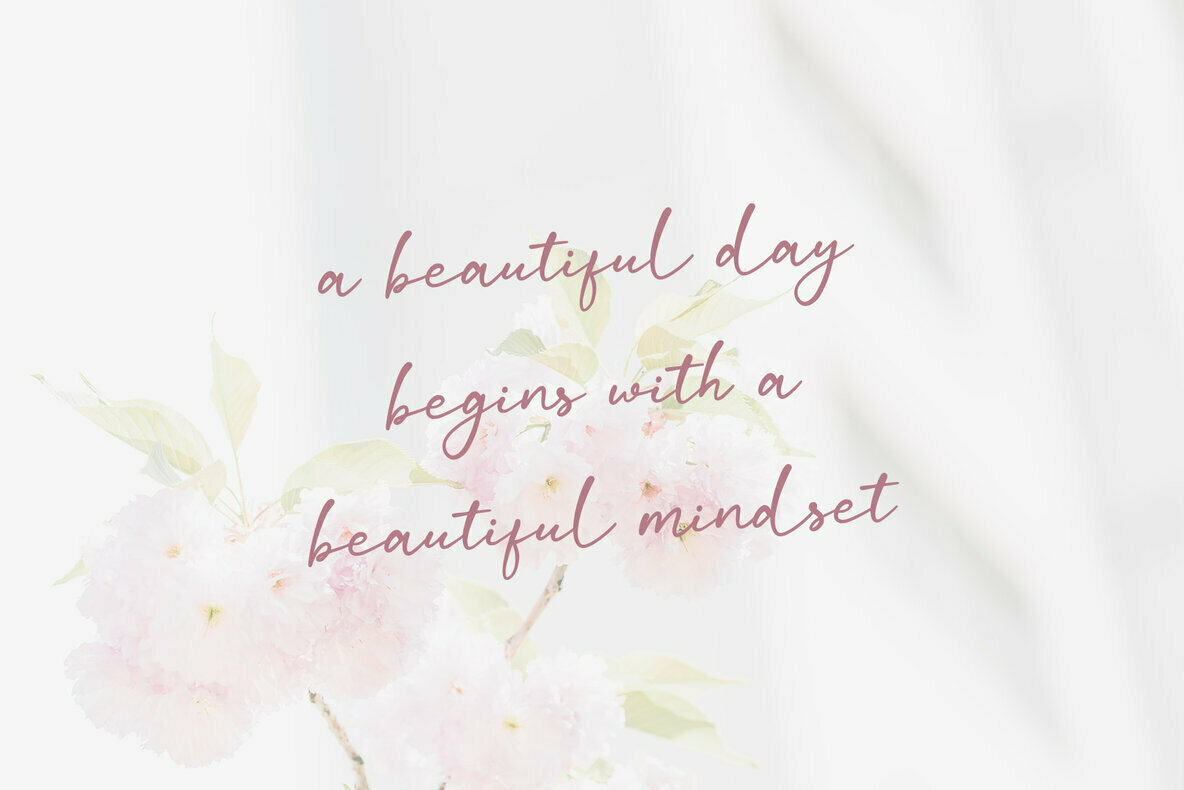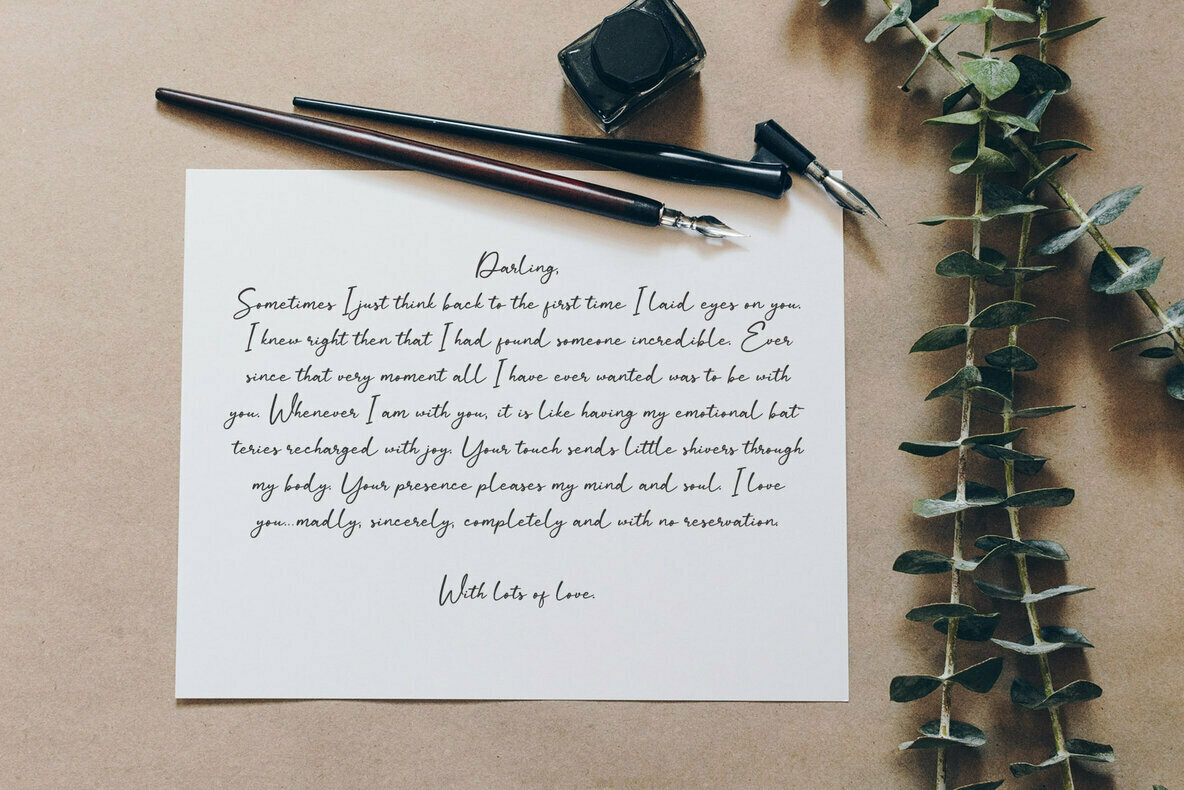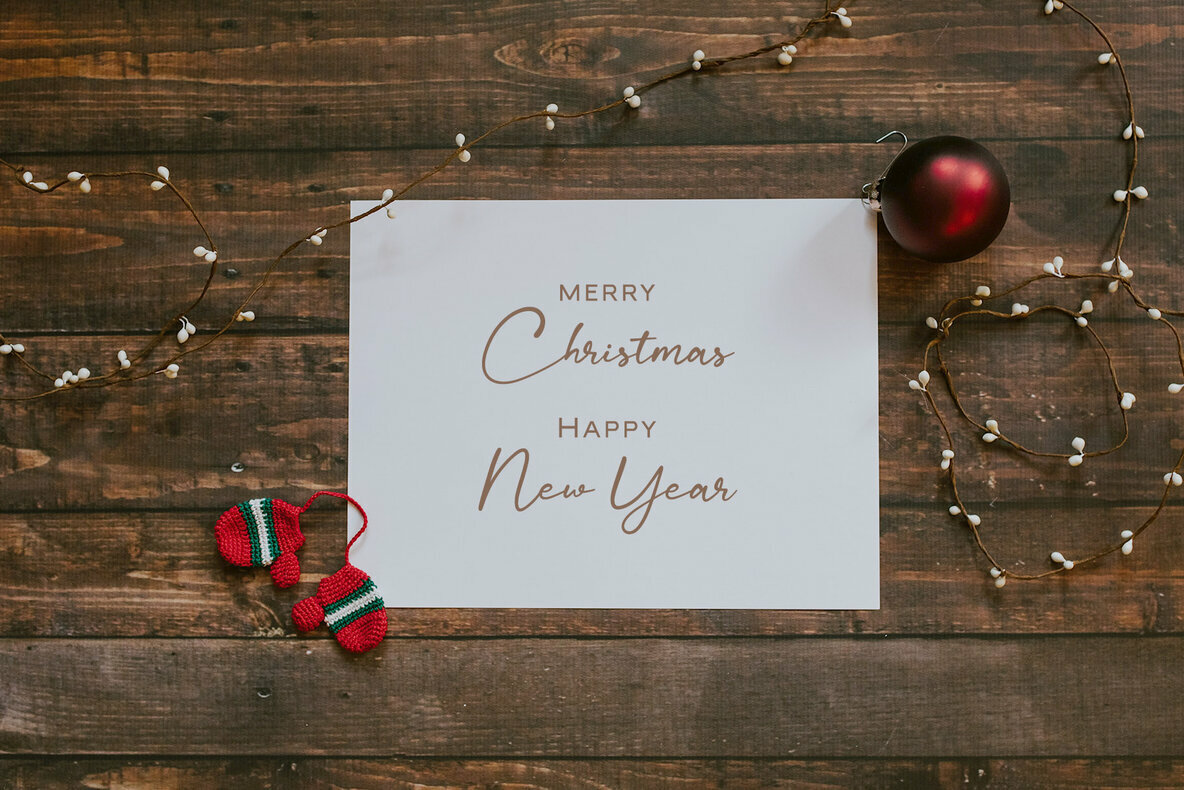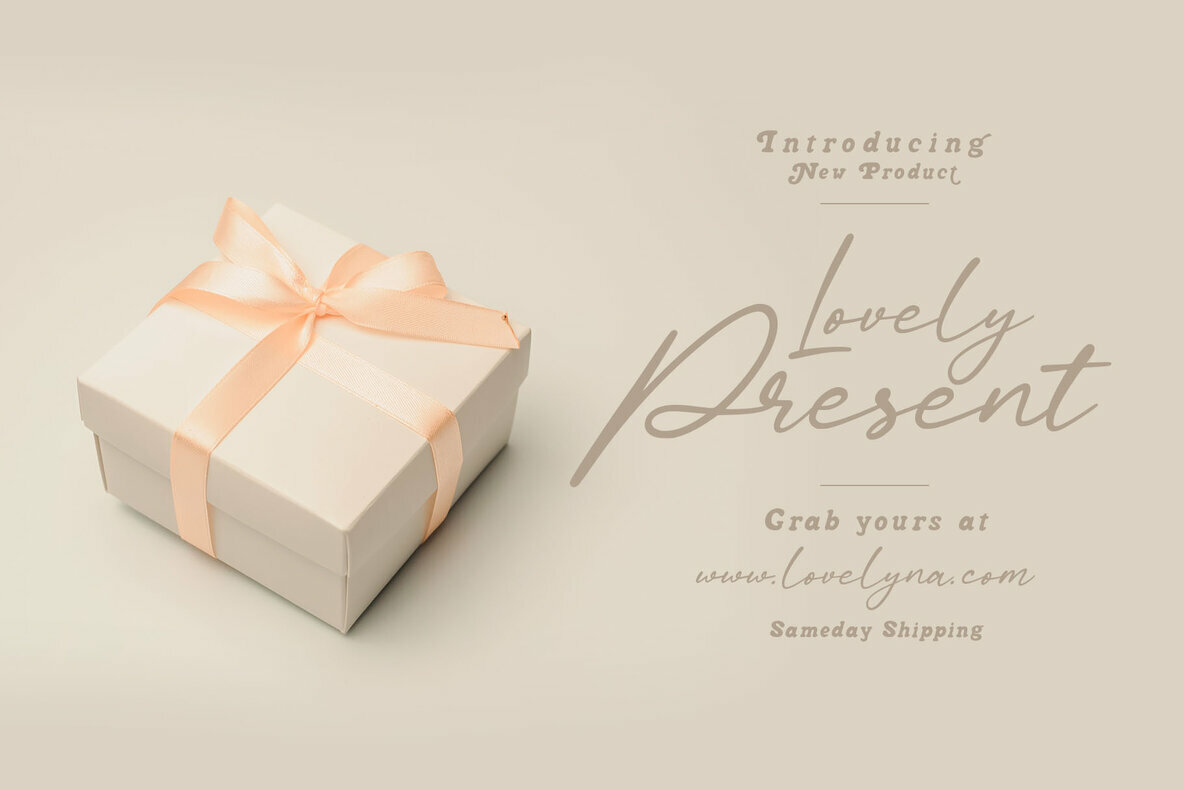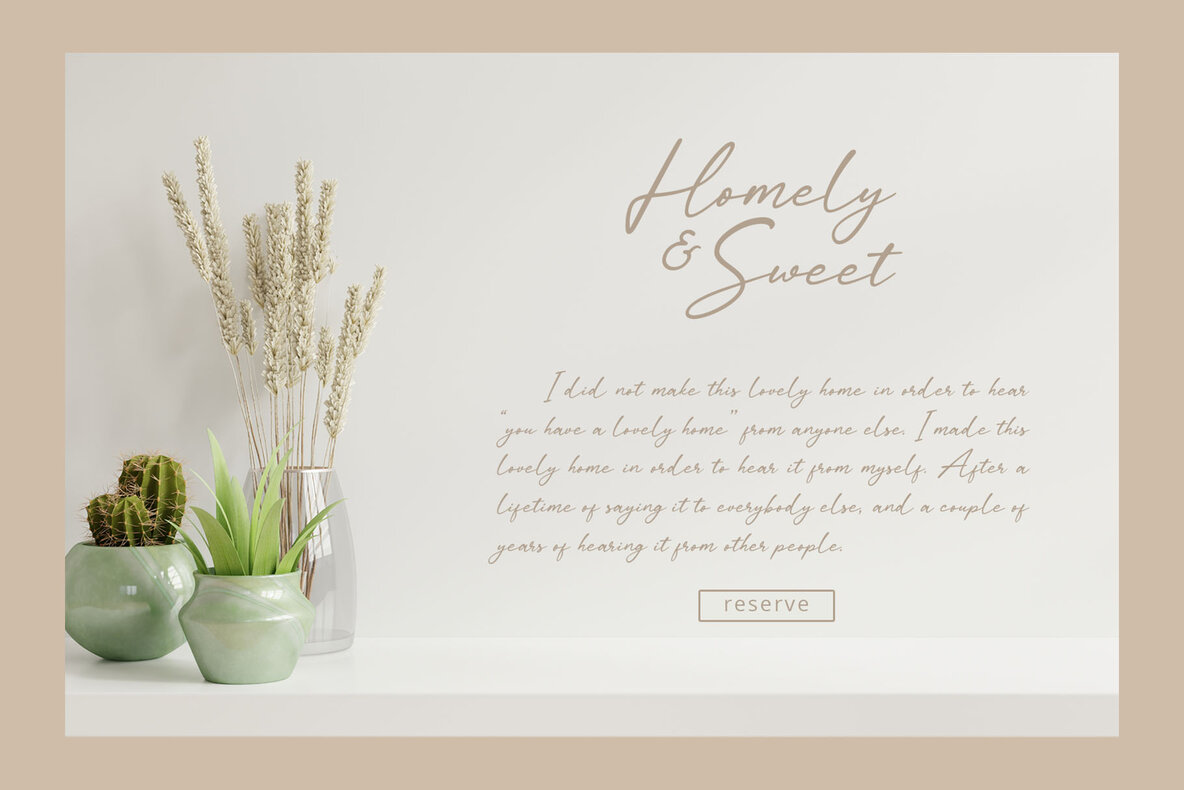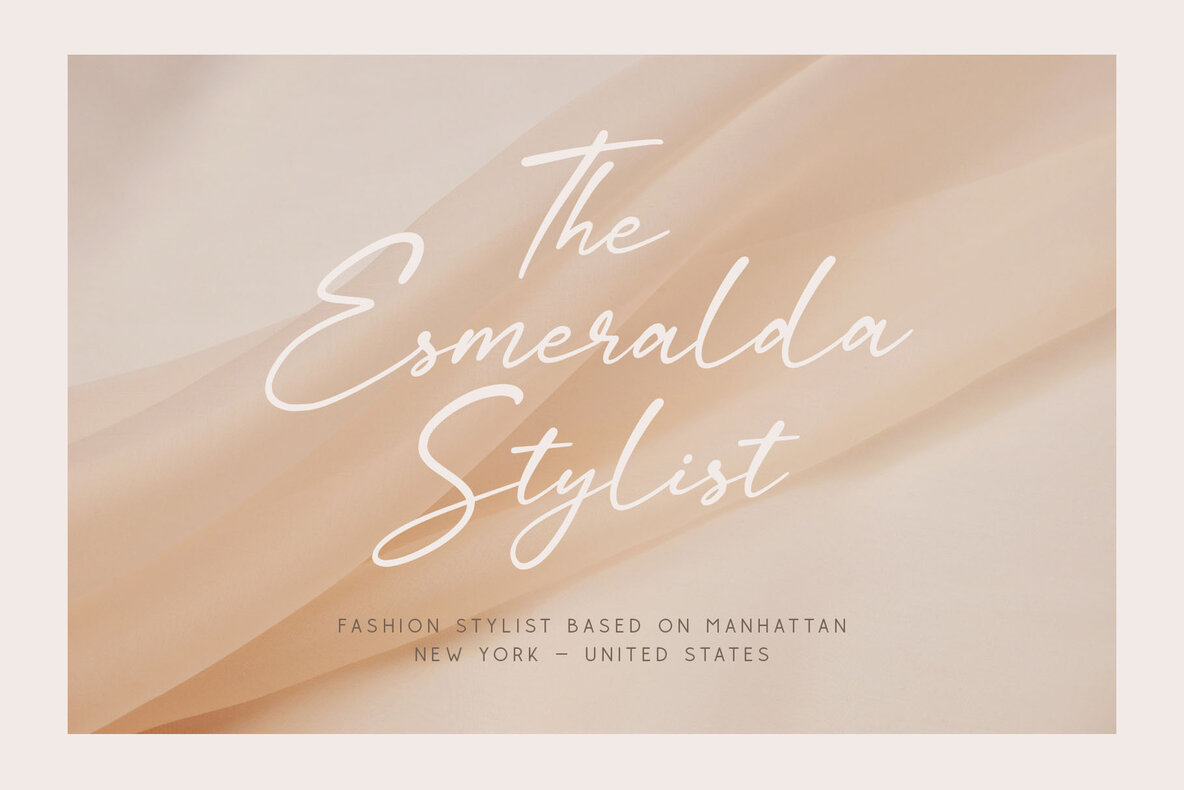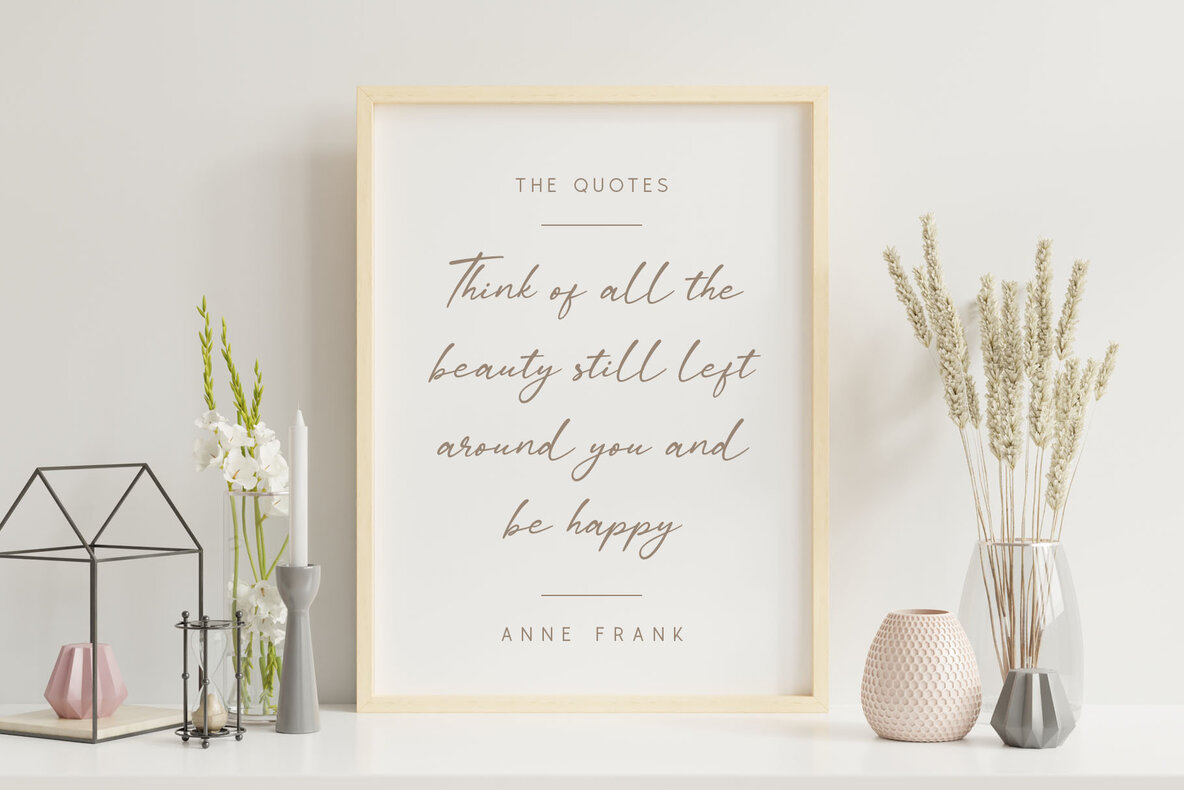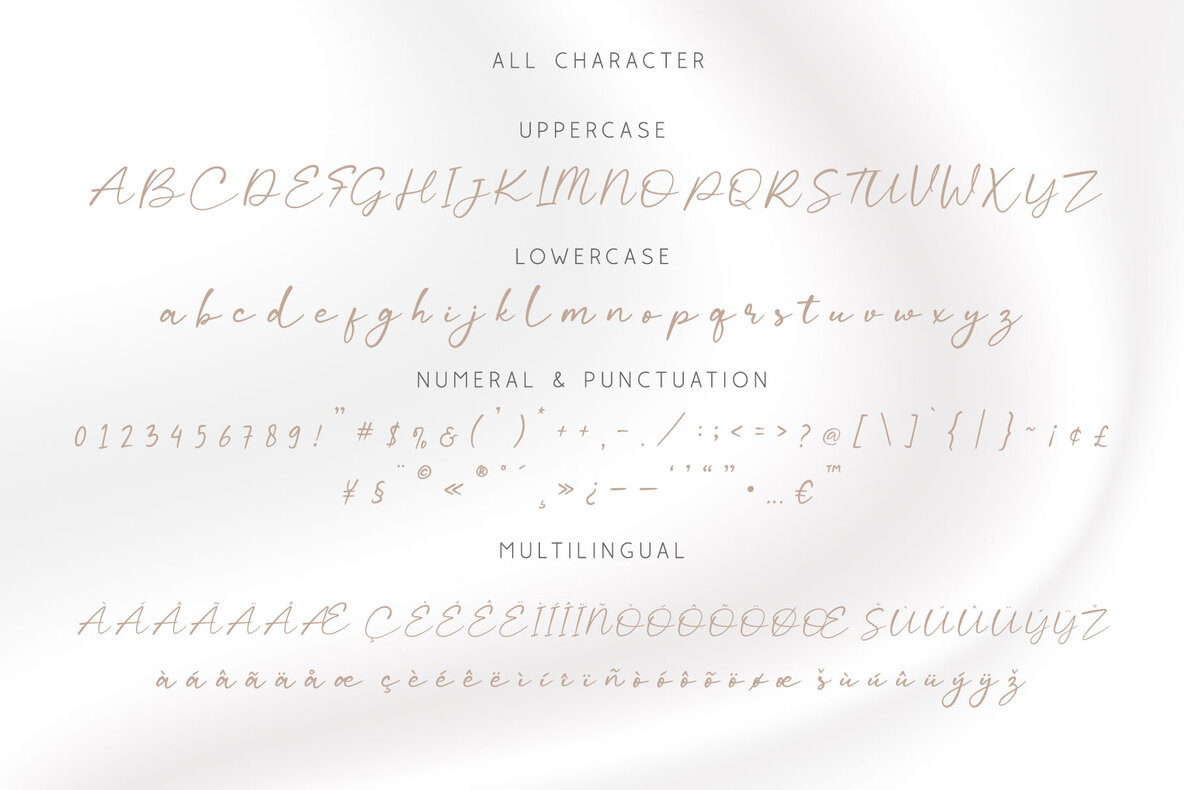
Calaya Font
Calaya by Craft Supply Co. is a sophisticated yet playful handwritten script font, meticulously crafted to embody the essence of genuine handwriting. Its elegant curves and fluid lines make it adaptable for a wide variety of designs, providing a refined touch to any project. Whether you are in the fashion industry, running an e-commerce brand, or designing a wedding boutique website, Calaya brings a chic and upscale aesthetic that resonates with contemporary sensibilities. Suitable for a multitude of creative endeavors, the Calaya script font is perfect for logos, greeting cards, and inspirational quotes. It enhances everything from posters and branding to name cards and stationery. The font's versatility extends to design titles, blog headers, and art quotes, seamlessly fitting into modern envelope lettering, book design, and hand-drawn or watercolor-themed projects. It is equally ideal for DIY crafts and any application that demands an elegant, trendy appeal.Calaya: Embrace Elegant Handwritten Script